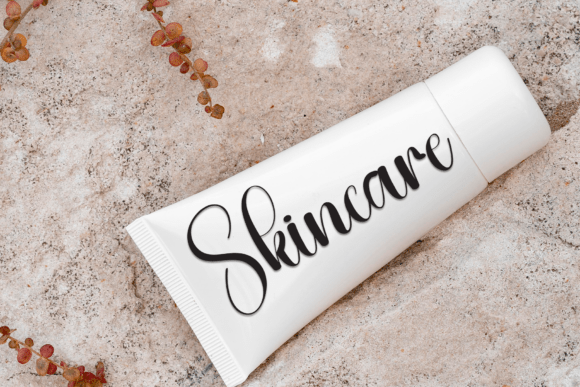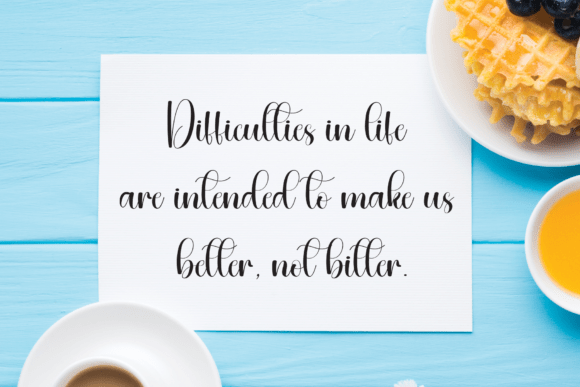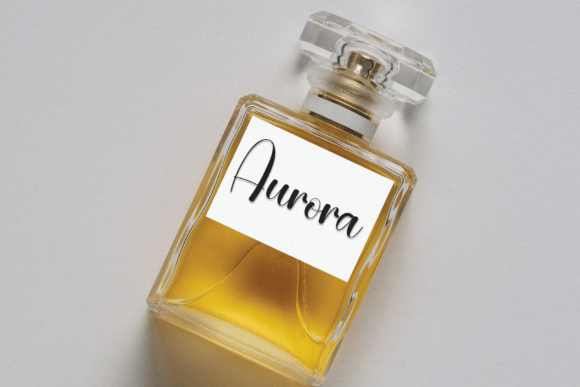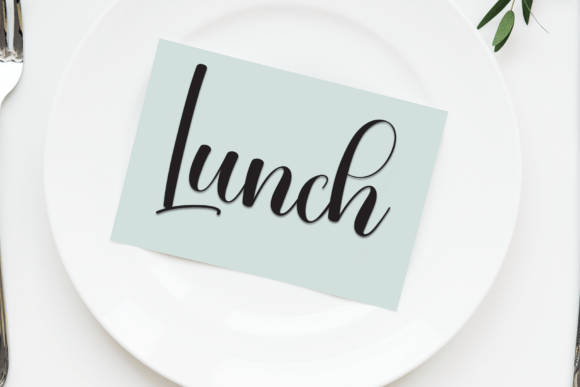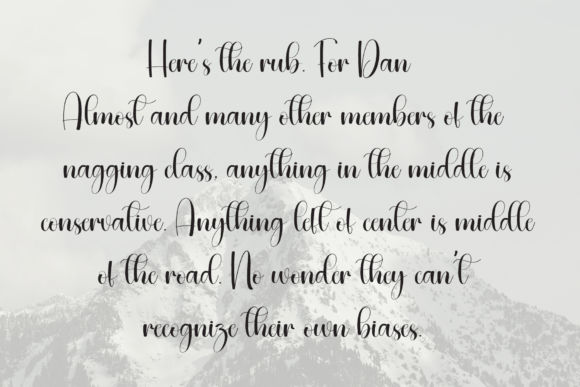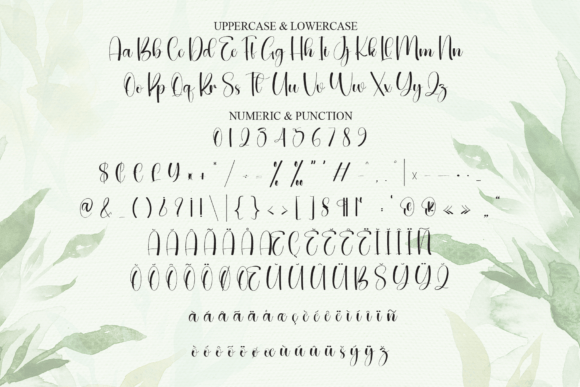
Elevate Your Designs with Creative Handwritten Font
In the world of typography, a creative handwritten font can add a personal touch to any design project. If you’re looking for a font that exudes elegance, sophistication, and romance, look no further than Creative Handwritten. This beautiful script font is perfect for designers and crafters seeking to add a touch of whimsy and charm to their creations.
What is Creative Handwritten Font?
Creative Handwritten is an elegant and graceful script font that features smooth curves and charming flourishes. Its modern calligraphy style pairs beauty with versatility, making it an ideal choice for a wide range of design projects. From wedding invitations and branding materials to social media graphics and logos, this font is sure to impress.
Key Features of Creative Handwritten Font
- Elegant and Graceful: Creative Handwritten features smooth, flowing lines that give it an elegant and refined look.
- Charming Flourishes: The font’s charming flourishes add a touch of whimsy and personality to any design.
- Modern Calligraphy Style: The font’s modern calligraphy style makes it perfect for designs that require a touch of sophistication and elegance.
- Versatile: Creative Handwritten is a versatile font that can be used for a wide range of design projects, from wedding invitations to branding materials.
Perfect for Feminine Design Projects
Creative Handwritten is a feminine font that is perfect for designs that require a touch of elegance and sophistication. Its smooth curves and charming flourishes make it an ideal choice for:
- Wedding Invitations: Add a romantic touch to your wedding invitations with Creative Handwritten.
- Branding: Use Creative Handwritten to create a feminine and elegant brand identity.
- Social Media Graphics: Add a touch of personality to your social media graphics with Creative Handwritten.
- Logos: Create a beautiful and elegant logo with Creative Handwritten.
Tips for Using Creative Handwritten Font
Here are some tips for using Creative Handwritten font in your designs:
- Use it as a Title Font: Use Creative Handwritten as a title font to add a touch of elegance and sophistication to your designs.
- Pair it with Other Fonts: Pair Creative Handwritten with other fonts to create a unique and interesting design.
- Use it for Headings: Use Creative Handwritten for headings to add a touch of personality to your designs.
Creative Handwritten font is a beautiful and elegant script font that is perfect for designers and crafters seeking to add a touch of whimsy and charm to their creations. Its modern calligraphy style pairs beauty with versatility, making it an ideal choice for a wide range of design projects. Whether you’re creating wedding invitations, branding materials, or social media graphics, Creative Handwritten is sure to impress.
Get Creative with Creative Handwritten Font
So why wait? Get creative with Creative Handwritten font today and elevate your designs to the next level. With its elegant and graceful lines, charming flourishes, and modern calligraphy style, Creative Handwritten is the perfect font for designers and crafters seeking to add a touch of romance and style to their creations.